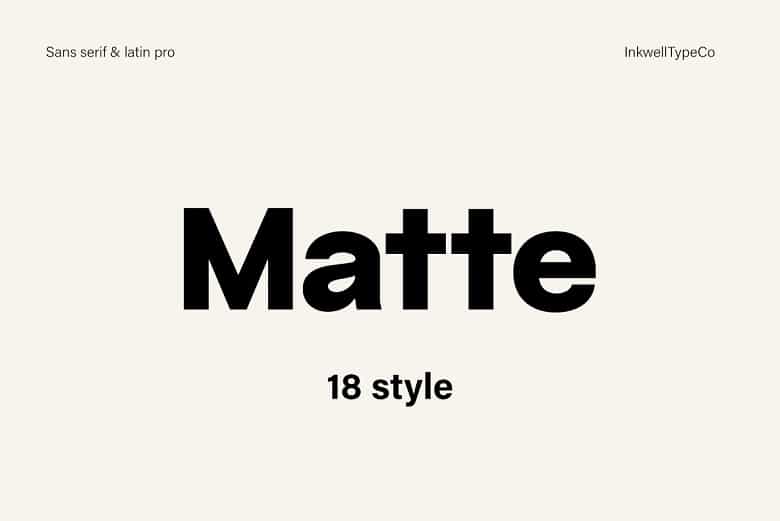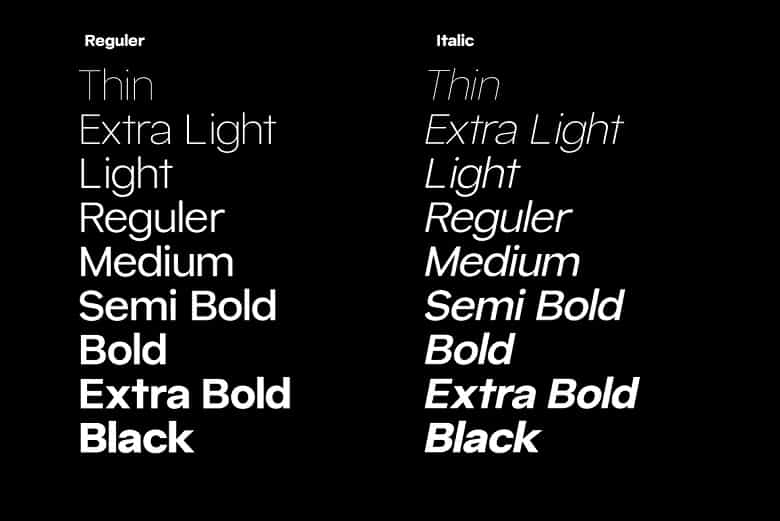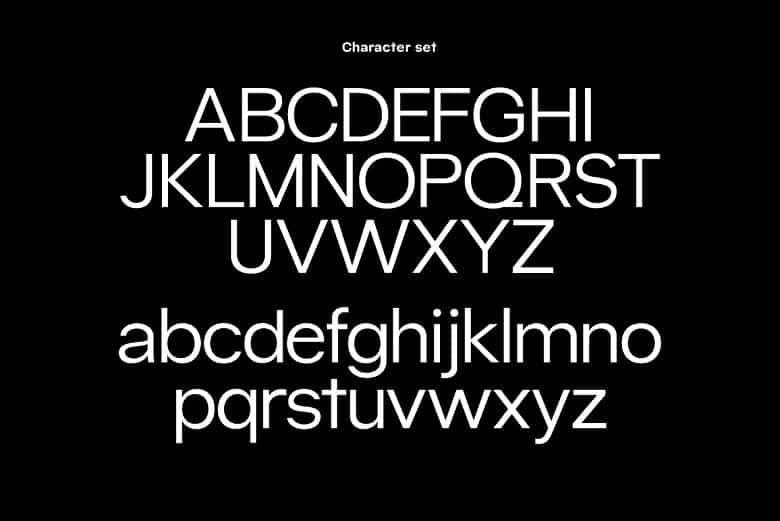
Matte is a new modern sans serif font family which has both the features of boldness and modern design with cleanliness. With a concept that is clear and simple, Matte is a highly flexible style that can be used in a range of different applications.